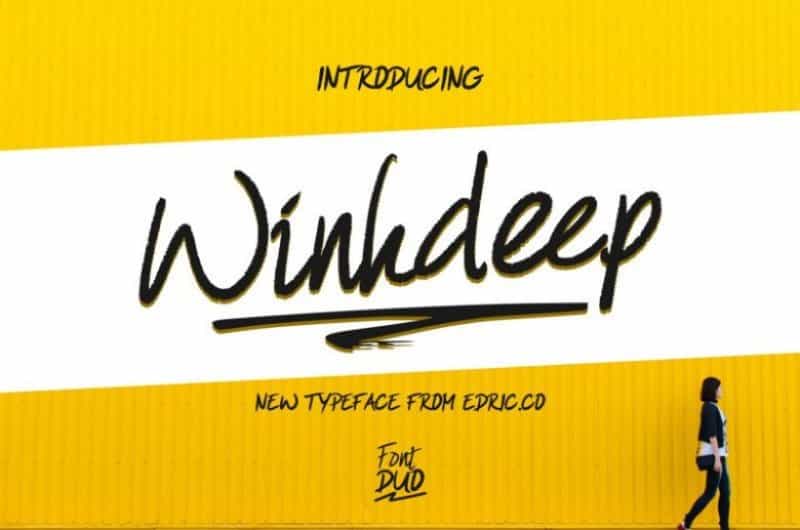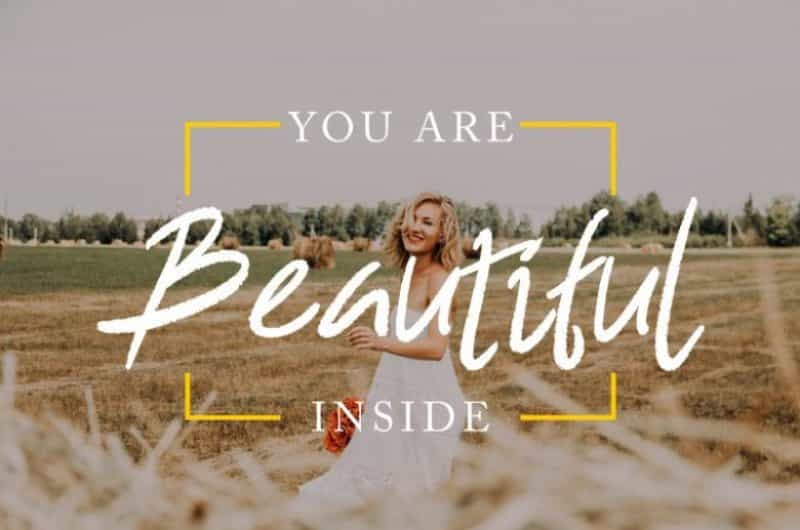
Hello Folks, The debut of our first font “WinkDeep” is now at hand. It has 2 font variations so we call it FONT DUO. We made it appear like a dry brush and the rough chalk hand writing.